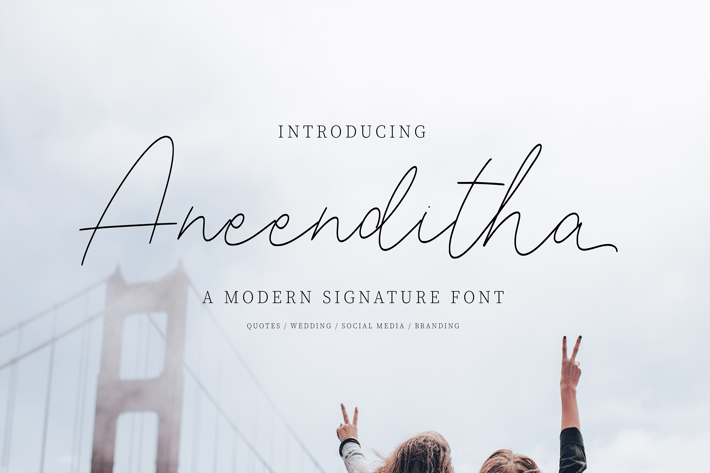
Aneenditha | A Modern Signature Font
Aneenditha | A Modern Signature Font with a calligraphy style, So beautiful on invitation like greeting cards, branding materials, business cards, quotes, posters, and more!